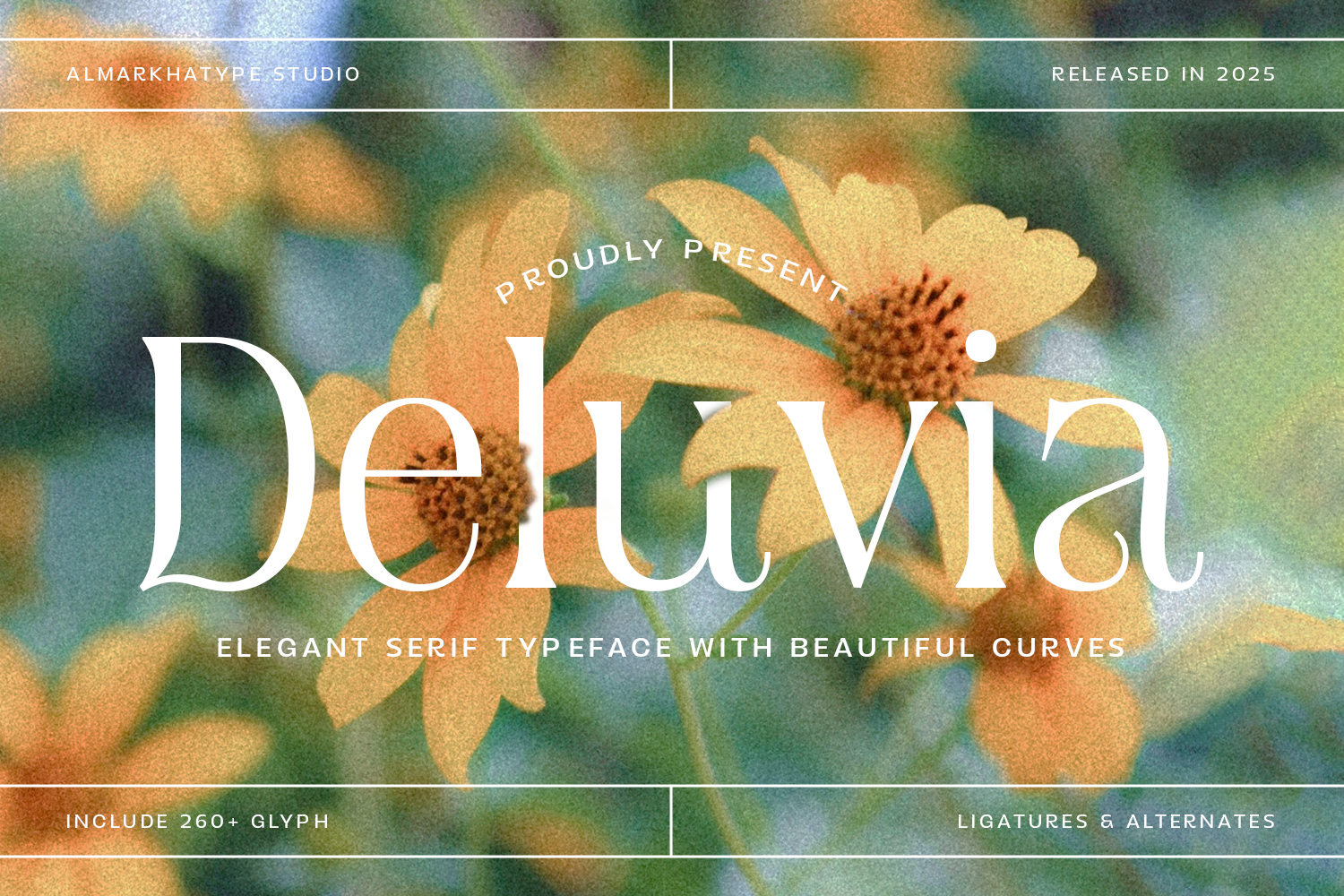
Deluvia - Elegant Serif Typeface
Deluvia is an elegant serif typeface crafted to evoke warmth, softness, and refined sophistication in every composition. With its smooth curves, graceful contrast, and delicately sculpted letterforms, Deluvia brings a poetic and timeless charm—perfect for designs that seek a balance of classic beauty and modern artistic expression. Carefully built with attention to natural flow, this typeface highlights gentle bends and harmonious shapes that create a serene visual rhythm. Deluvia also offers a selection of ligatures and alternate characters, giving designers the freedom to elevate their layouts with expressive refinements, romantic touches, and a curated typographic personality.